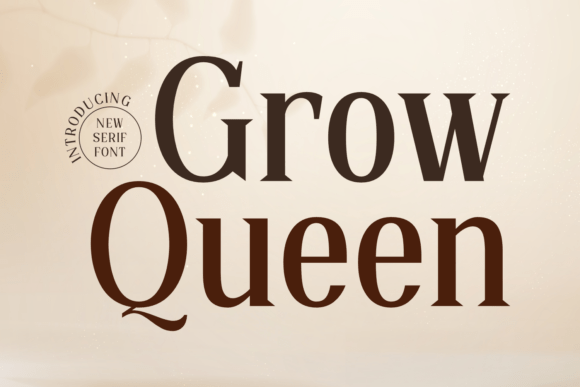
Introducing Grow Queen Font: The Epitome of Modern Serif Elegance
In the realm of typography, the right font can elevate a brand, project, or design to new heights. For those seeking a balance of elegance and strength, Grow Queen Font emerges as a beacon of sophistication. This modern serif font is meticulously crafted to bring a touch of luxury and contemporary charm to various design applications, from branding and editorial layouts to packaging and invitations.
The Essence of Grow Queen Font
Grow Queen is not just another serif font; it’s a carefully designed typeface that marries traditional serifs’ timeless charm with a modern, clean aesthetic. Its creation stems from the desire to produce a font that embodies both elegance and resilience, making it suitable for projects that demand a high level of sophistication and professionalism.
The font features clean lines that provide a clear and readable base, refined curves that add a touch of softness and approachability, and subtle details that elevate the overall design to a luxurious feel. This combination ensures that Grow Queen stands out in any medium, whether it’s on a digital screen or in print.
Key Features of Grow Queen Font
- Modern Serif Design: Grow Queen boasts a contemporary take on the classic serif, making it perfect for designs that require a blend of tradition and modernity.
- Elegant and Strong: The font strikes an ideal balance between elegance, ensuring a sophisticated look, and strength, guaranteeing readability and impact.
- Clean Lines and Refined Curves: These features contribute to the font’s versatility, making it suitable for a wide range of applications.
- Subtle Details: The subtle nuances within the font’s design add layers of sophistication, setting it apart from more basic typefaces.
Applications of Grow Queen Font
The versatility of Grow Queen Font makes it an excellent choice for various design projects. Here are some of the areas where Grow Queen truly shines:
- Branding: For brands aiming to convey luxury, sophistication, and a modern edge, Grow Queen is an ideal choice. It helps in creating a strong, memorable brand identity.
- Editorial Layouts: In magazines, newspapers, and digital publications, Grow Queen’s readability and elegance enhance the reading experience, making content more engaging.
- Packaging: For product packaging that requires a touch of class and sophistication, Grow Queen helps brands stand out on crowded shelves.
- Invitations: Whether it’s a wedding invitation, corporate event, or product launch, Grow Queen adds a level of luxury and formality, setting the tone for the event.
Why Choose Grow Queen Font?
In a world filled with countless font options, Grow Queen distinguishes itself through its unique blend of modernity and classic sophistication. Here are a few reasons why designers and brands might prefer Grow Queen over other fonts:
- Timeless Appeal: Unlike trend-specific designs, Grow Queen’s classic undertones ensure it remains relevant and stylish for years to come.
- Versatility: Its adaptability across different mediums and applications makes it a valuable addition to any designer’s toolkit.
- Emotional Connection: The font’s elegant and strong personality can help brands establish a deeper connection with their audience, conveying a sense of luxury, quality, and attention to detail.
Using Grow Queen Font in Your Designs
To fully leverage Grow Queen’s capabilities, consider the following tips:
- Pairing: Experiment with font pairings that complement Grow Queen’s modern serif characteristics. Sans serif fonts for contrast or classic serifs for harmony can create visually appealing combinations.
- Hierarchy: Utilize different weights or sizes of Grow Queen to establish a clear visual hierarchy, ensuring your design communicates effectively.
- Color: Choose colors that align with the brand’s identity or the project’s mood. Grow Queen’s versatility shines in both bold and subtle color schemes.
Grow Queen Font represents a significant addition to the world of typography, offering a unique blend of modern elegance and timeless strength. Its suitability for a wide range of applications, from luxury branding to creative projects, makes it a valuable asset for designers seeking to elevate their work. With Grow Queen, designers can create visually stunning and impactful designs that resonate with their audience, ensuring their message is conveyed with sophistication and style.